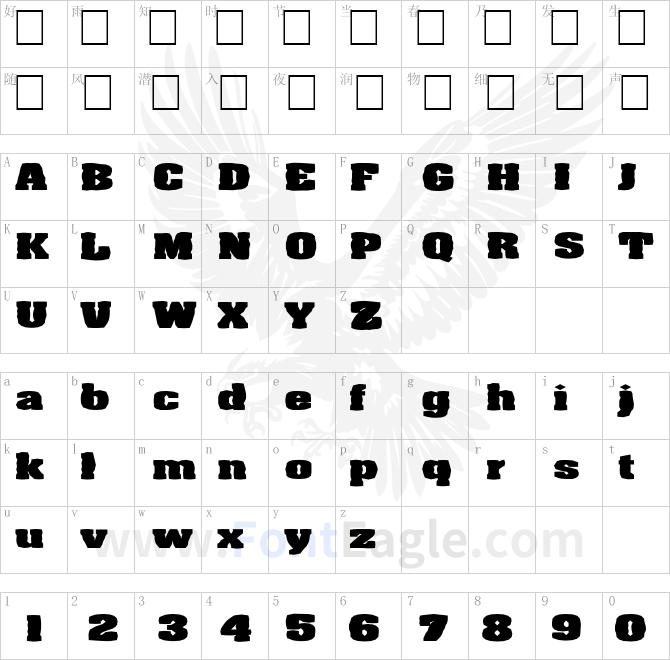
FZ-BASIC-52-MANGLED-EX is a great font, widely used in graphic design, single-page menu design, poster design and other fields, and is deeply loved by designers.FZ-BASIC-52-MANGLED-EX download.